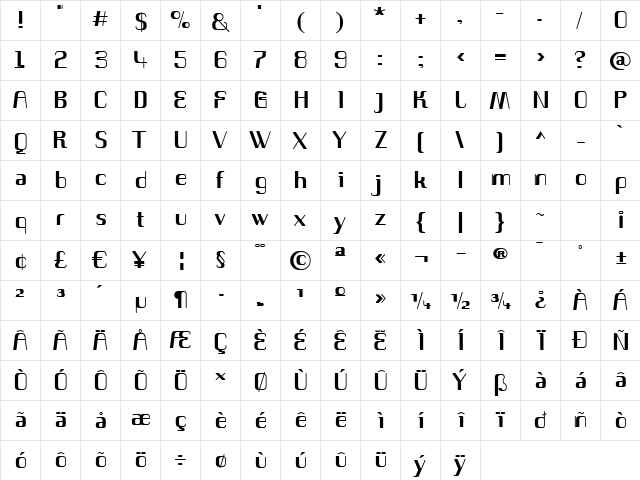
RomeroBold Regular
Design Context for RomeroBold Typeface
RomeroBold is a composed and adaptable typeface that performs quietly and consistently across a wide range of design contexts. The heavy weight commands attention and anchors typographic hierarchies.